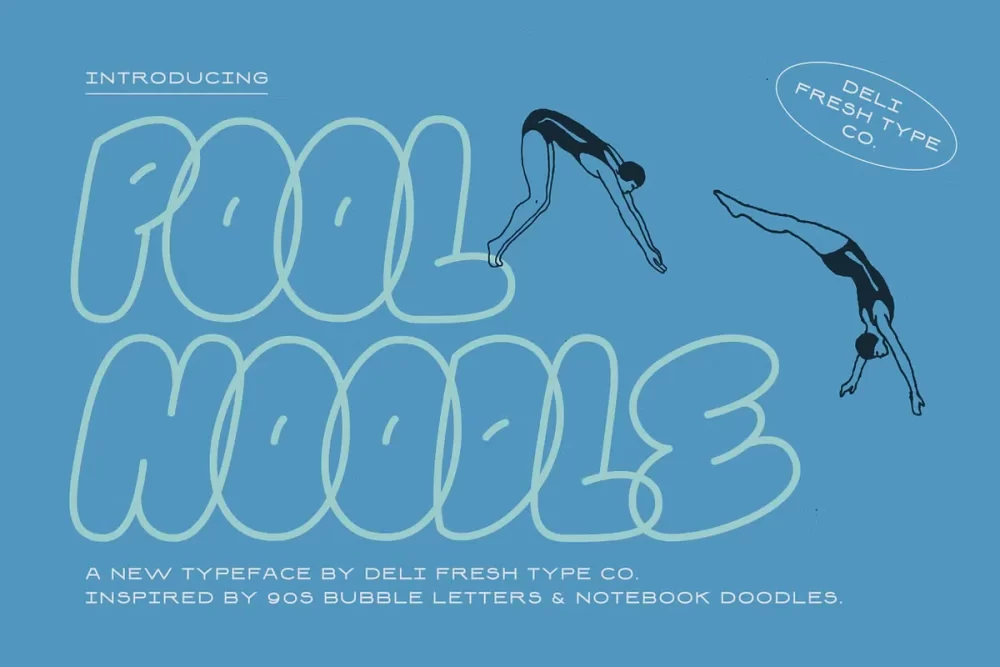
Pool Noodle is a playful, bubble-letter font that resembles the shape of pool noodles. It’s perfect for adding a fun and whimsical touch to your designs. Comes with upper-case letterforms, numbers, and a smattering of punctuation and special characters.